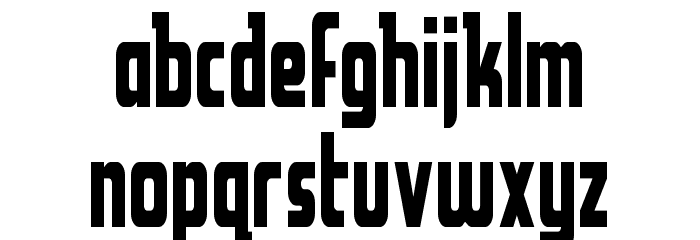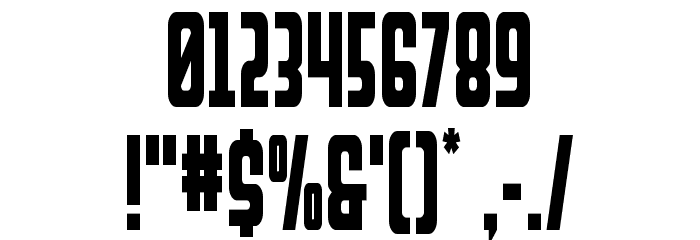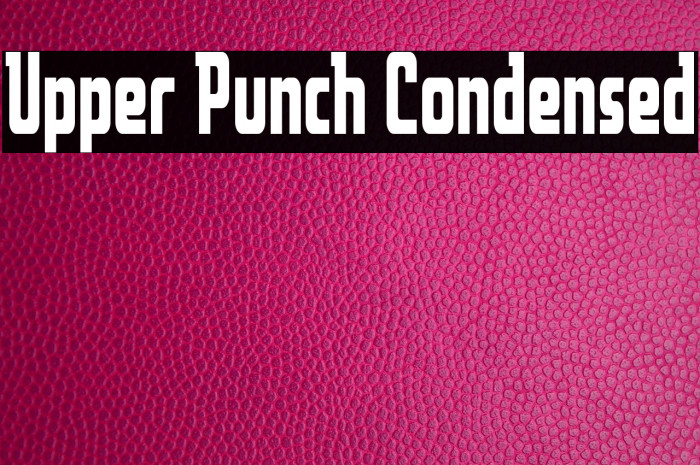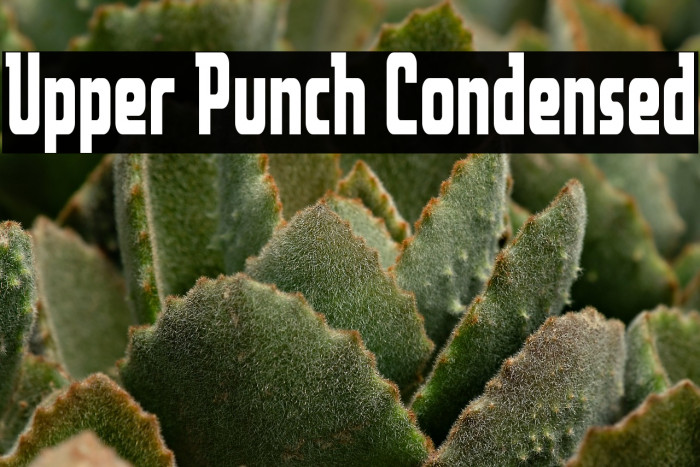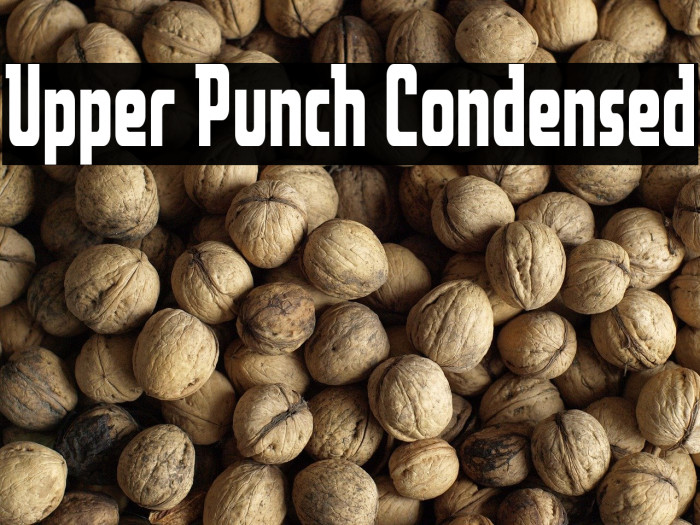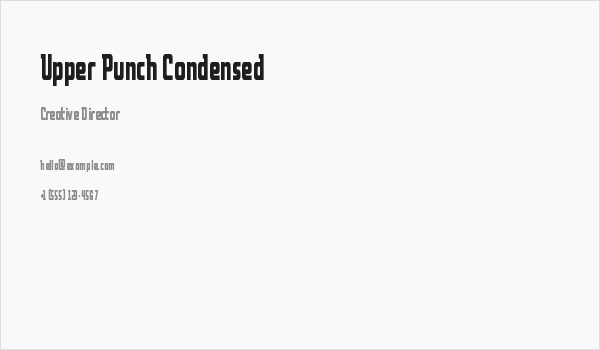
Upper Punch Condensed Font
This font features a bold and condensed style, characterized by its strong, impactful presence. The uppercase letters are tall and narrow, with a uniform stroke width that gives a modern and robust appearance. The lowercase letters maintain the condensed form, ensuring consistency across the typeface. The numerals are equally bold, providing excellent readability. Special characters are designed to match the overall aesthetic, making this font suitable for attention-grabbing headlines and titles. Its condensed nature allows for efficient use of space without sacrificing legibility.
A bold, condensed font with a strong, modern appearance.
- Proposed Projects: Ideal for posters, headlines, branding, and any project requiring a bold statement.
- Character Spacing: Tight